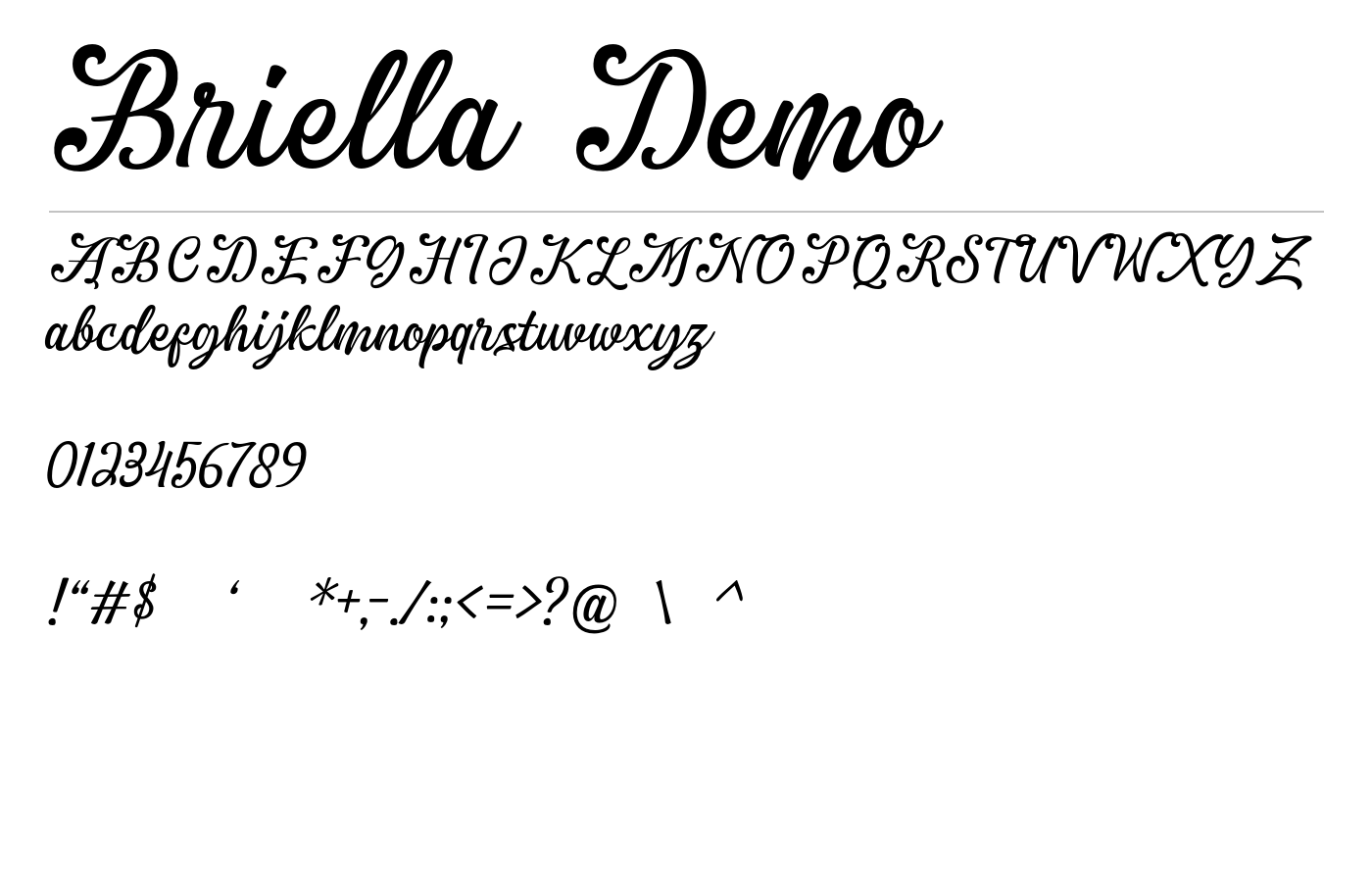
Briella is a graceful script font with elegant, flowing letterforms that combine a classic cursive style with modern readability. Its smooth, slightly condensed strokes and moderate contrast make it ideal for stylish branding, invitations, and sophisticated editorial designs. This font’s charming personality evokes a sense of refinement and warmth, perfect for projects that want to convey elegance and a personal touch.
Briella Font
About Briella Font
| Font family | Briella Font |
| Designer | Sahrul Hidayat |